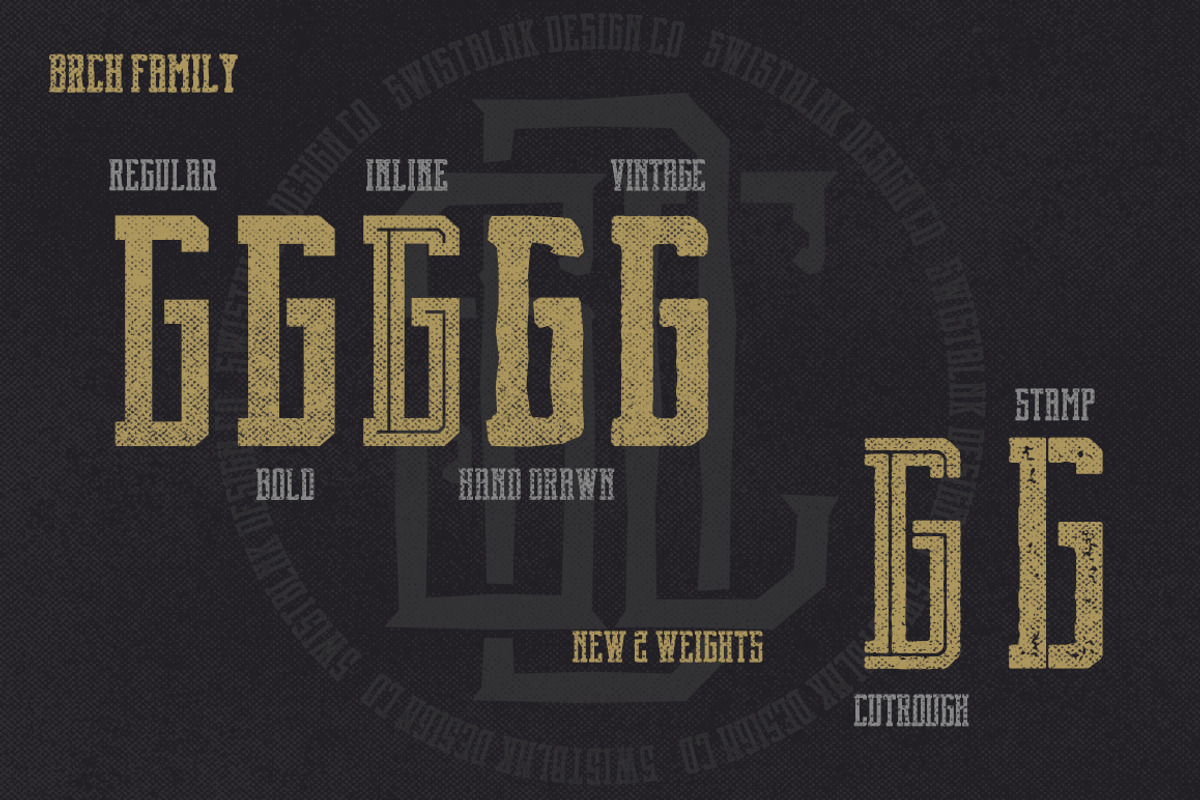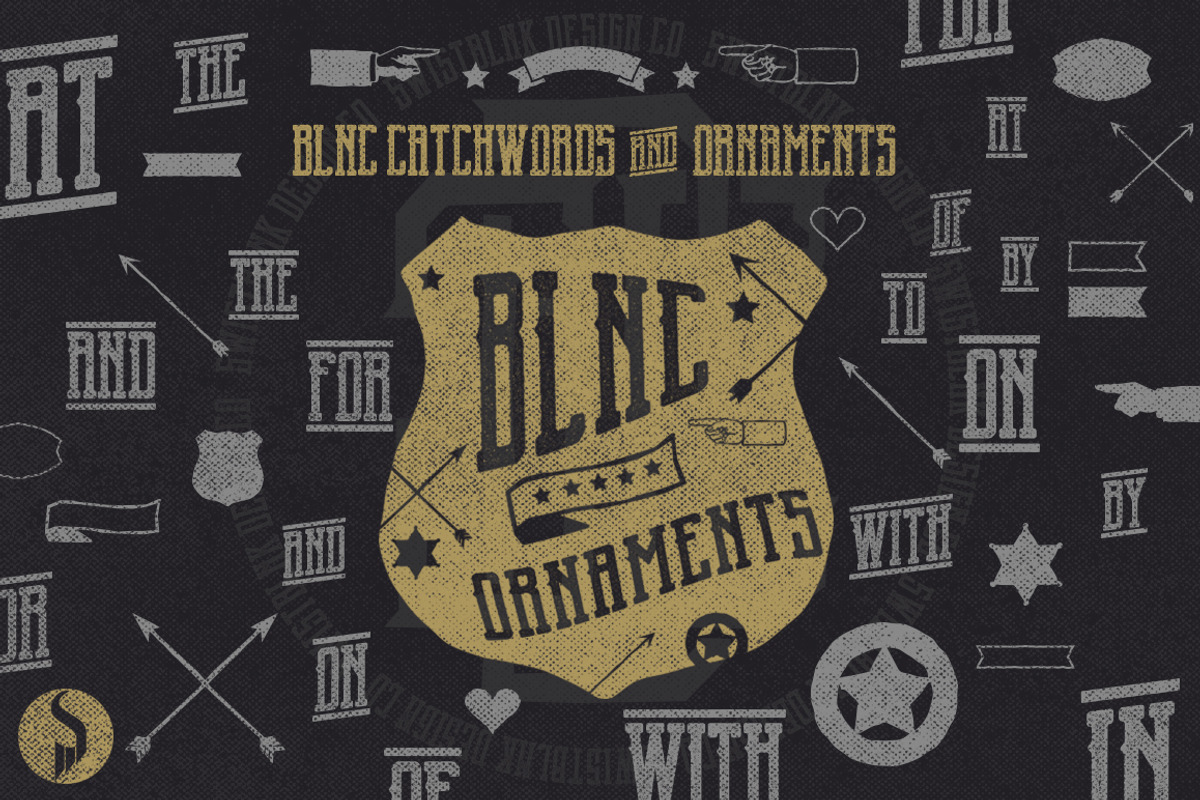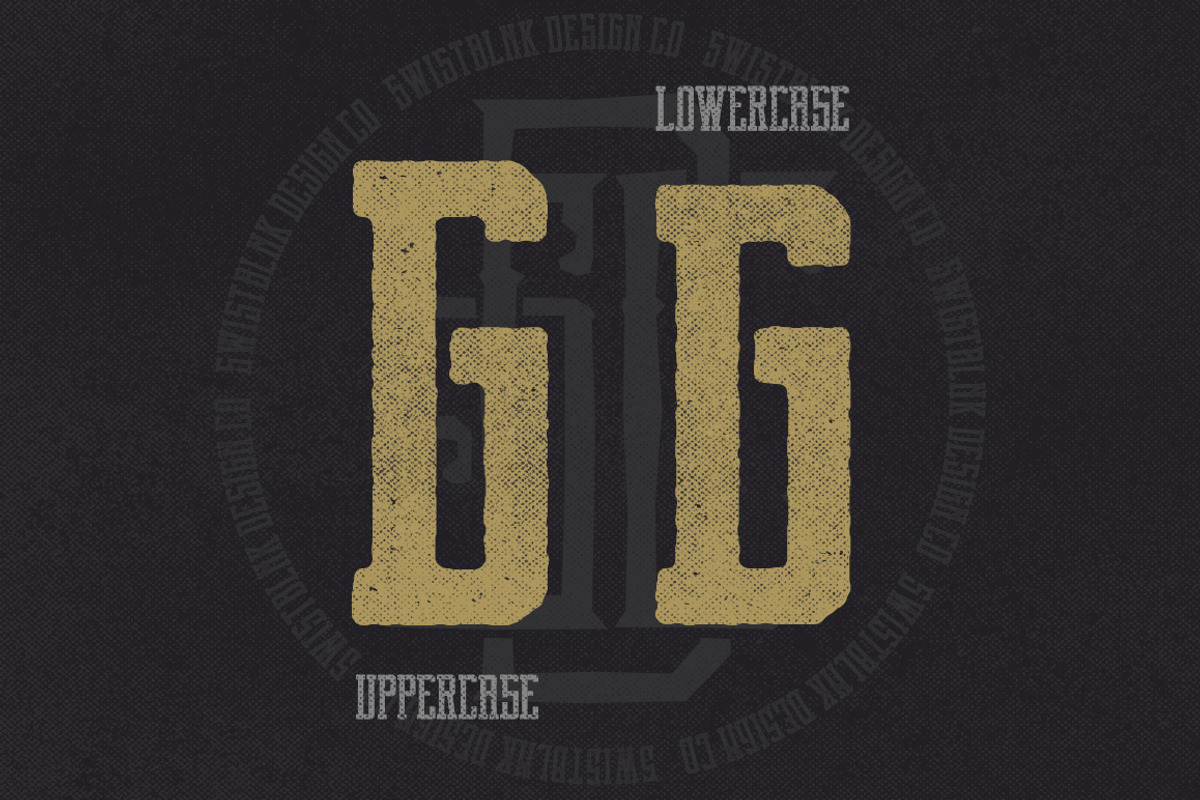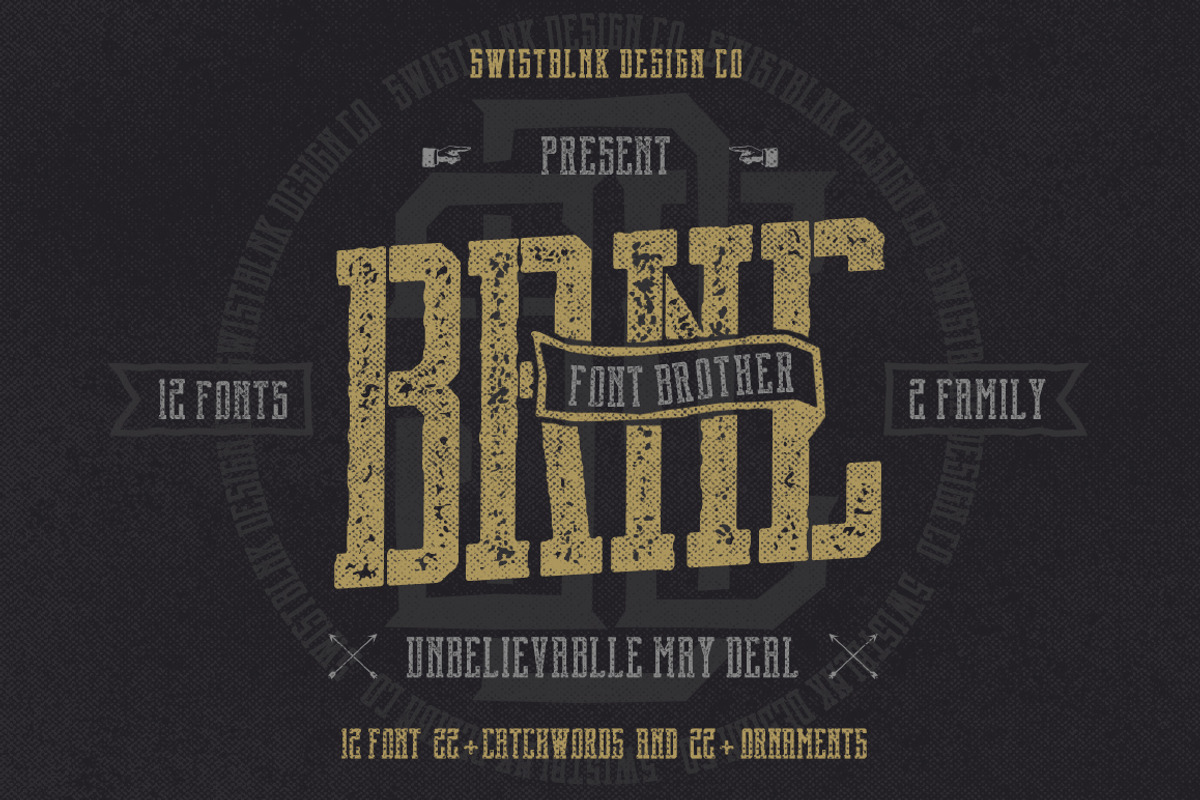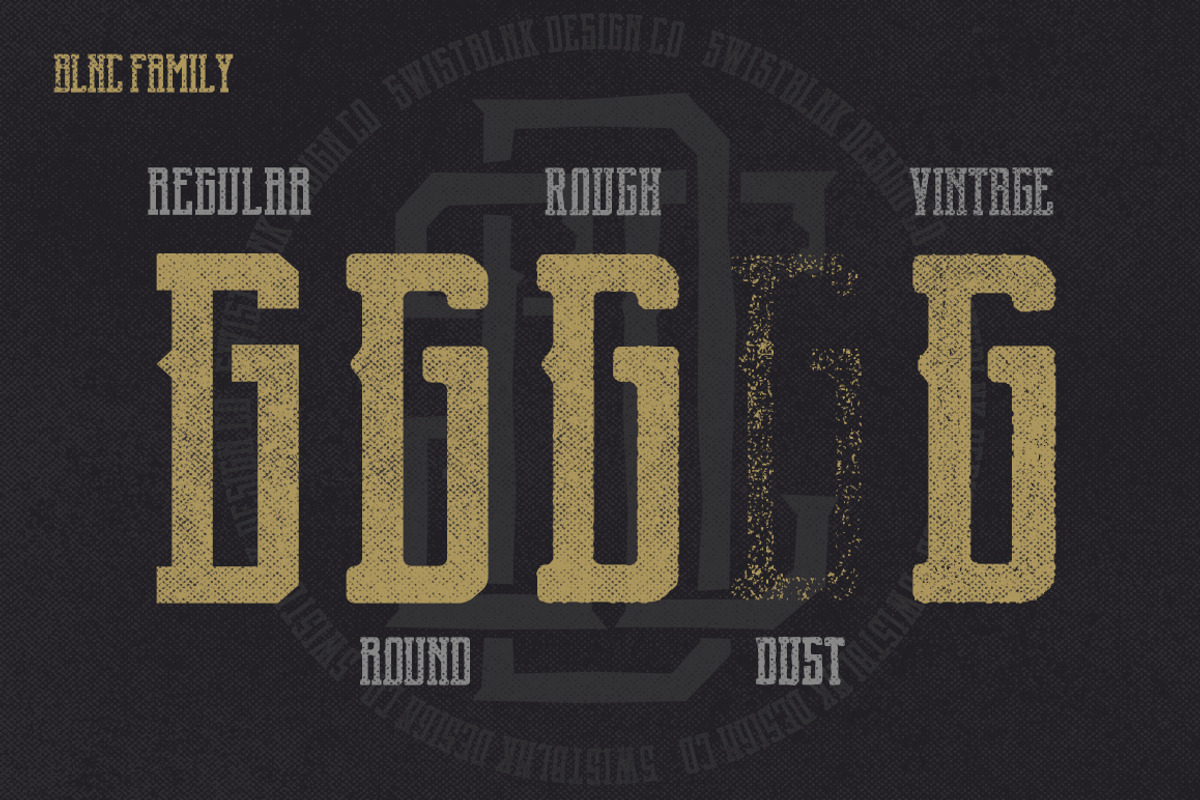
Brnc Font Brothers
Brnc Font Brothers by Swistblnk Std. is a font selected for branding, posters, packaging, typography.
- Brnc Font Brother (12 Font 22+ Catchwords 22+ Ornaments) Brnc is Font Brother includes 2 Font Family (Blnc Family and Brch Family + 2 new we
Why Brnc Font Brothers is worth a look
Brnc Font Brothers by Swistblnk Std. fits naturally into Branding, posters, packaging, typography.